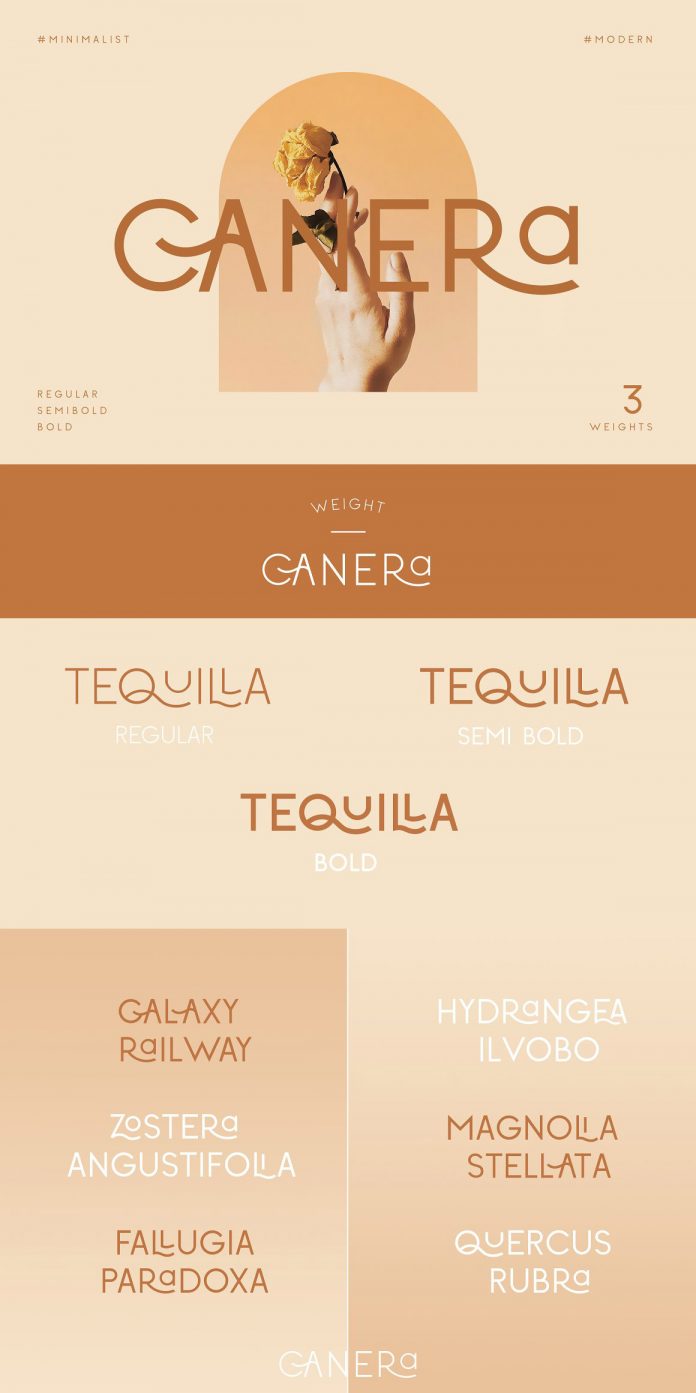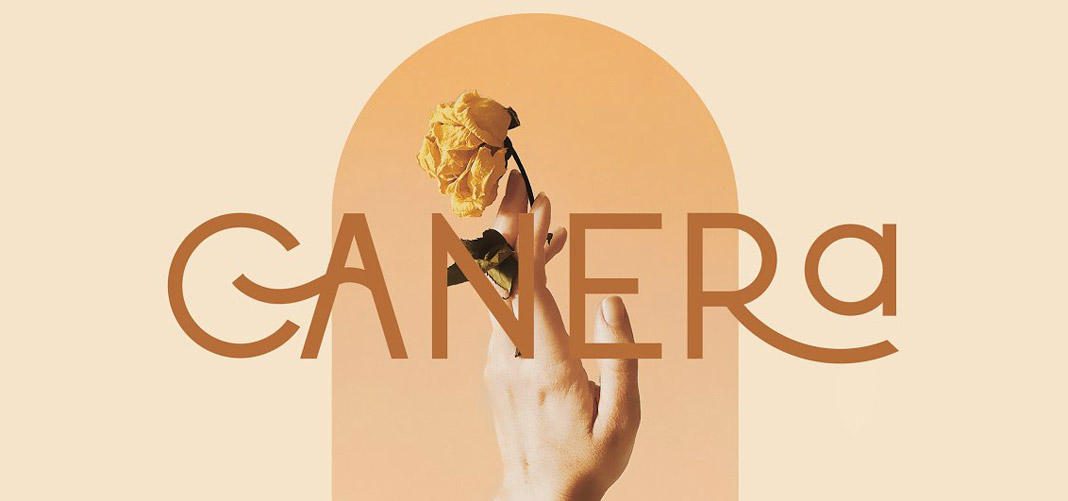
Canera, an elegant, decorative typeface designed and published by Creative Corner.
Created and published by the skilled team of Creative Corner, a studio specializing in a great variety of digital products, Canera is a new sans serif font that offers an elegant and decorative style. It comes with beautiful ligatures, plenty of special alternative glyphs, ornaments, and support for multiple languages. You can use this versatile font for both large and small text sizes. It is perfect for branding projects, logos, clothing, branding, packaging, magazine headers, just to name a few.